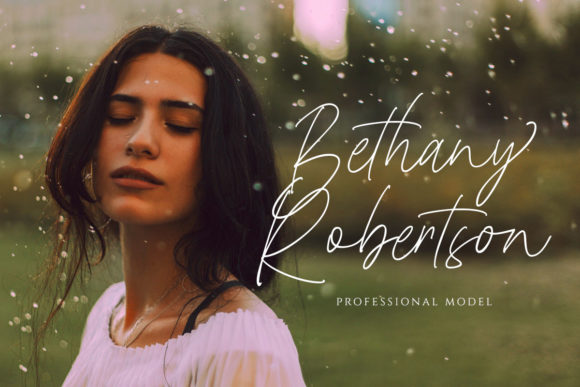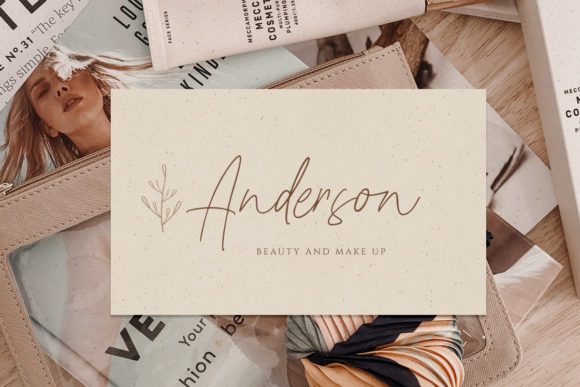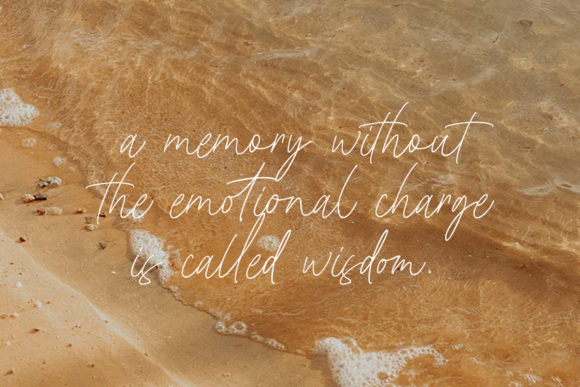
About Wednesday Island Font
Wednesday Island is a thin lettered and graceful script font. Fall for its ravishing style and use it to create gorgeous designs! Wednesday Island is PUA encoded which means you can access all glyphs and swashes with ease!